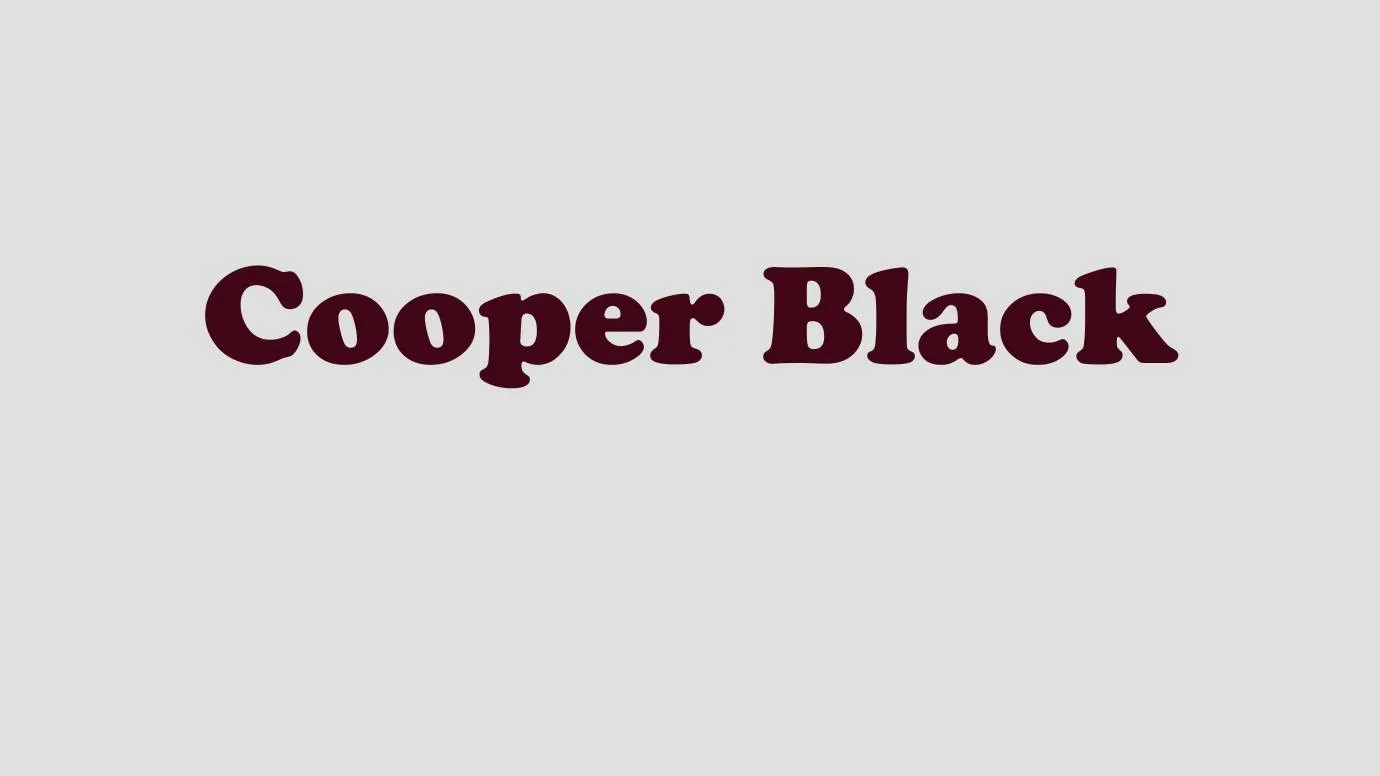
Cooper Black Font Family is a serif font designed by an American typeface and graphic designer, Oswald Bruce Cooper. He has designed various typefaces throughout his career, including the Cooper series, Cooper black series. Cooper full-face series etc.
Cooper Black Font Family
NameCooper Black Font
DesignerOswald Bruce Cooper
Foundry Barnhart Brothers & Spindler
TypeOld Style
Date Released1922